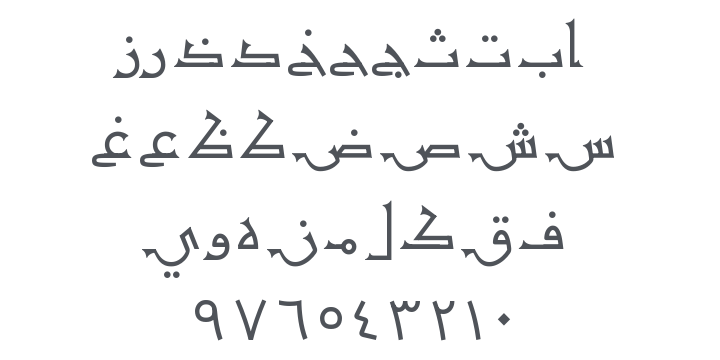
Astrolabe Font
by Khaled Hosny
About Astrolabe
Astrolabe is a Kufic typeface inspired by Arabic inscription on old scientific instruments like Astrolabes and Quadrants. The main source of inspiration is quadrants made by Shams al‐Din al-Mizzī (690–750 AH / 1291–1349 CE), like the one in Cairo Museum of Islamic Art, and another one in The The British Museum.